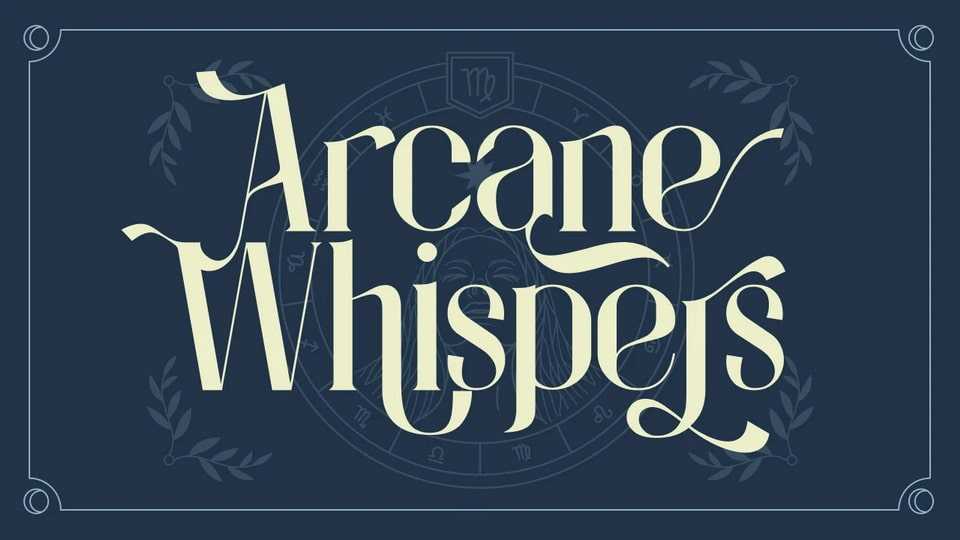
Download Arcane Whispers font, a captivating display typeface that blends classic elegance with a touch of the mystical. Inspired by timeless serif styles and reimagined with magical swashes and intricate ligatures.